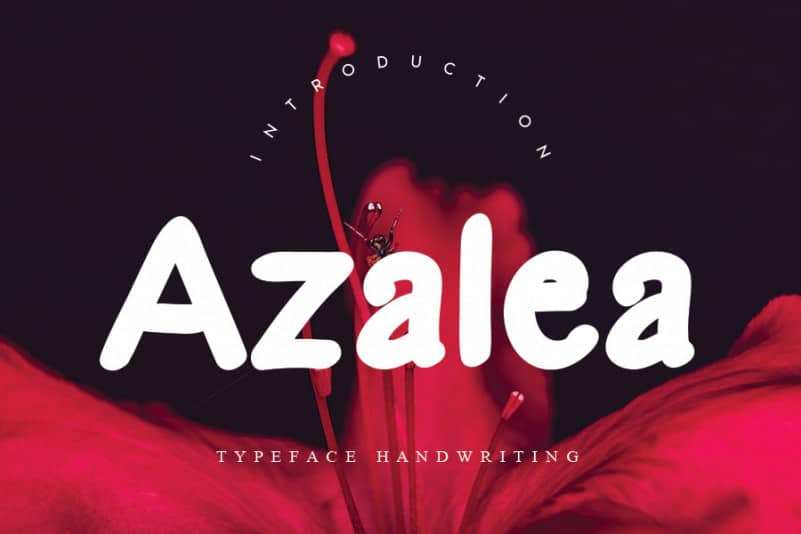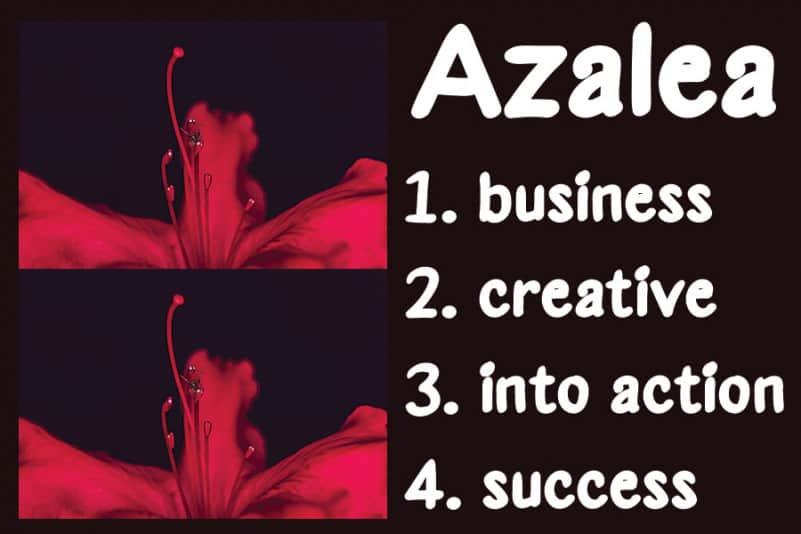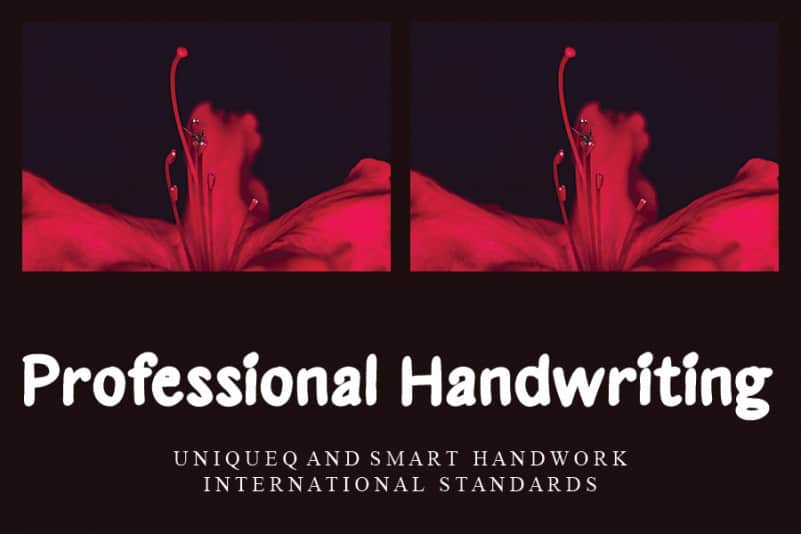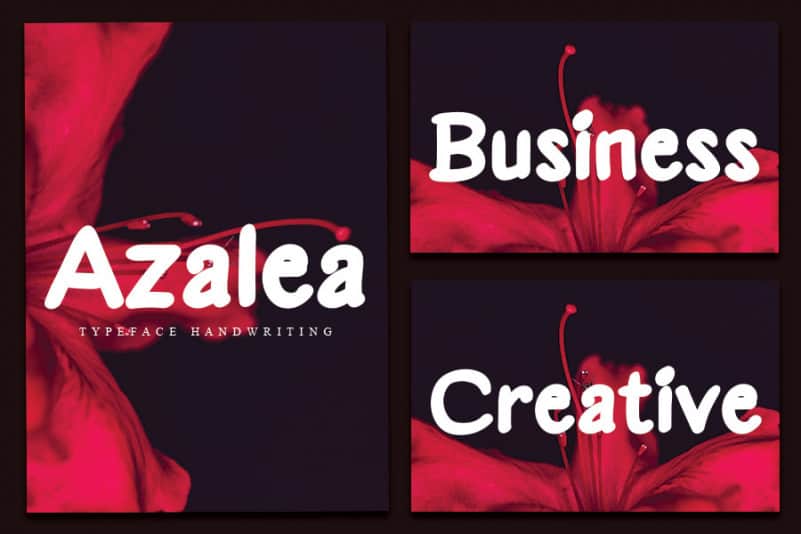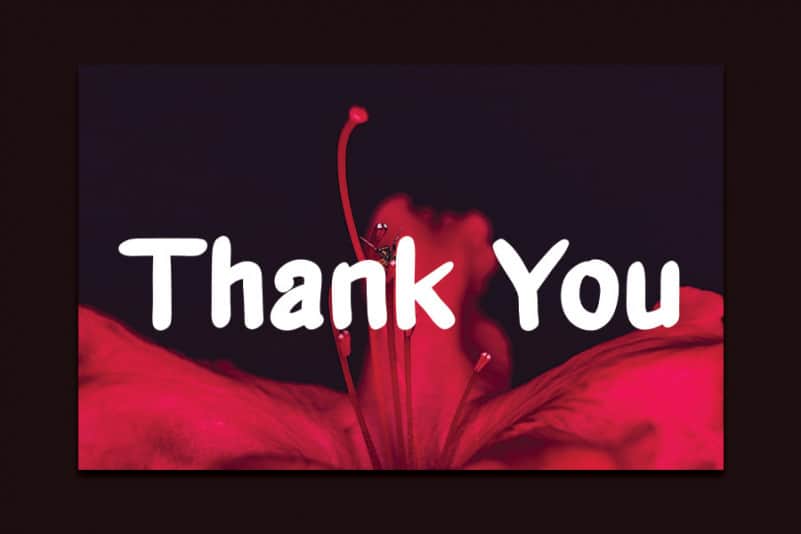
Azalea Handwritten Font
Azalea Handwritten Font is a bold handwritten font, carefully handcrafted to become a true favorite. Clean and a little bit quirky, this font is the perfect fit for all of your logos, branding, social media, and crafty DIY projects.